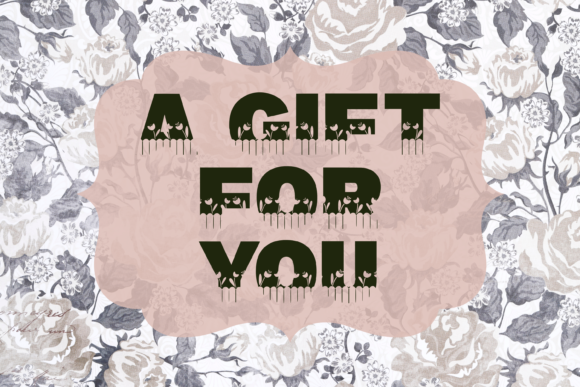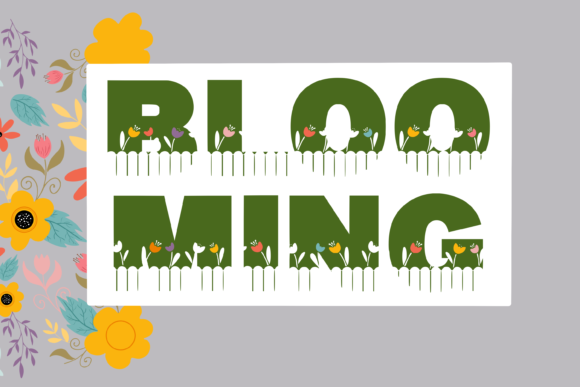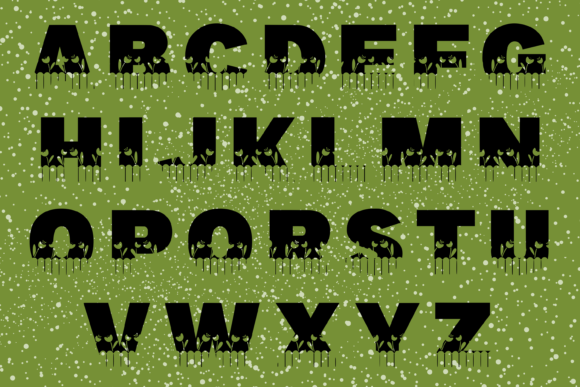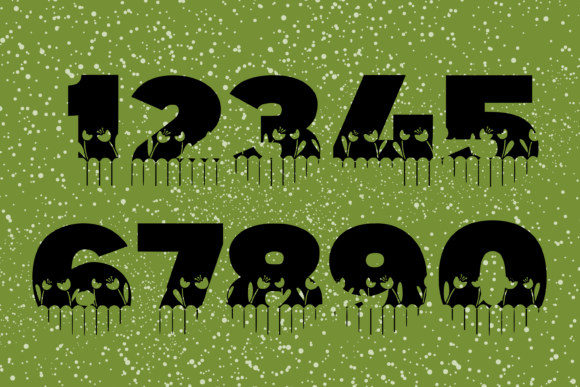
The Blooming Font: Elevate Your Designs with Elegance
Have you ever been in the middle of a design project, and suddenly, you’re stuck on finding the perfect font? I recall a particularly frustrating moment when I was working on a greeting card design for a client’s anniversary. The design was almost complete, but the font I was using just didn’t have that special something. That’s when I discovered the Blooming font, and it completely transformed my project!
A Personal Review: What I Love About Blooming Font
The Blooming font has become a staple in my design toolkit, and here’s why:
- ✨ Exquisite decorative style perfect for making any design stand out
- ✅ Highly versatile for various creative projects, from greeting cards to T-shirt designs
- 💫 Beautifully crafted with attention to detail, giving it a luxurious feel
While the Blooming font is exceptional, there are a few minor considerations:
- 🤔 It might be a bit over-the-top for very minimalist designs
- ⚠️ Some of the intricate details might not render as clearly at smaller font sizes
The Story Behind Blooming Font
The Blooming font was inspired by traditional floral patterns and calligraphy. Its designer aimed to create a font that captures the beauty of blooming flowers and the elegance of handwritten scripts. The result is a font that’s both decorative and versatile, perfect for a wide range of creative projects.
| Font Name | Blooming Font |
| Author | Rasa |
| What type of projects is the Blooming font best suited for? | The Blooming font is ideal for projects like greeting cards, stickers, T-shirt designs, and any creative endeavor where you want to add a touch of elegance and sophistication. |
| Does the Blooming font support OpenType features? | Yes, the Blooming font supports OpenType features, including glyphs and stylistic alternates. This allows for a high level of customization to fit your design needs. |